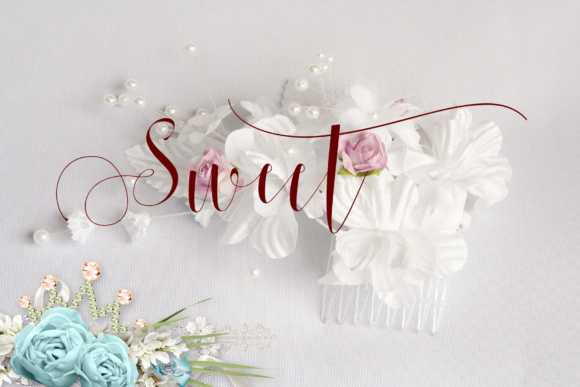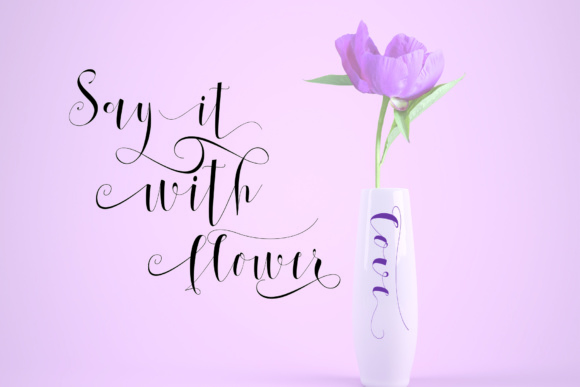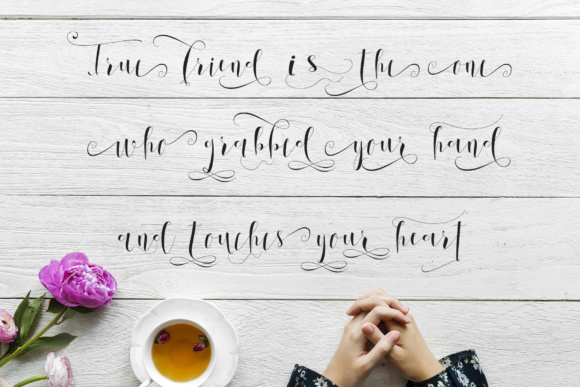
Introduction to Setangkai Script Font
If you are looking to add a touch of elegance to your current project do not miss Setangkai Script.
You’ll get yourself a remarkable collection of a modern script font, featuring many OpenType features and multiple languages It’s a beautiful script with gorgeous grounds and furnished with fine lines and will give your design an authentic look.